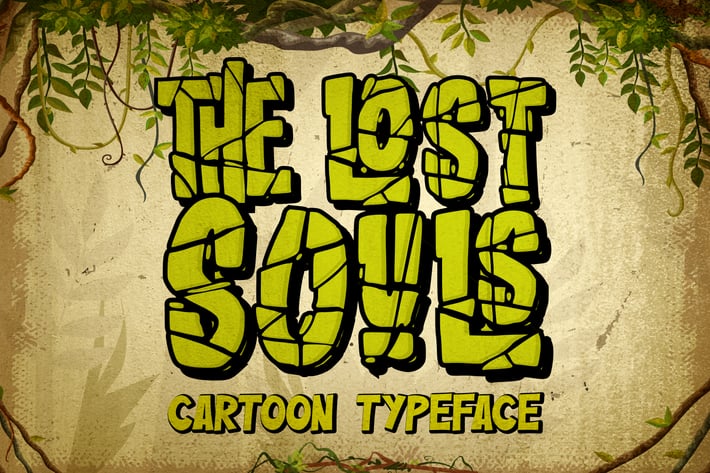
The lost Souls - Cartoon Display Font
the Lost Souls is a Cartoon Display Font, come in 2 Mode, Standart and outlines.
made with fractional effect but with minimal nodes, sooo, its not to heavy for your font system,
it will make your designs look modern, unique and fun. It’s perfect for labels, quotes, posters, DIY projects, branding, packaging, greeting cards, websites, photography overlays, signs, window art, scrapbooking, tags and so much more!
+ come in 2 mode = Standard and Outline glyphs
+ Ligatures